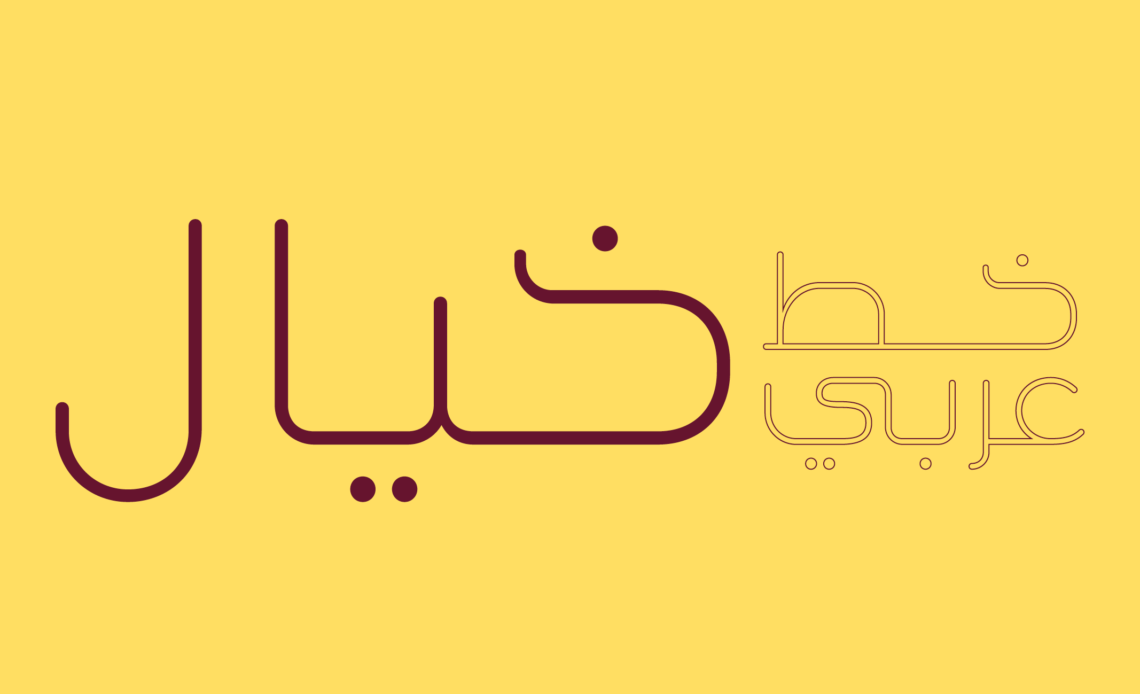
Venture into the realm of unparalleled typographic artistry with Khayal, an Arabic display font that transcends the boundaries of conventional calligraphy. Its linear-geometric structure breathes life into letterforms, shapes, and proportions, liberating them from the shackles of tradition. Khayal is not just a font; it's an expression of creativity, an invitation to embark on a journey through the depths of visual communication.
Immerse yourself in the world of Khayal, where each character carries a story, where every word becomes a masterpiece. Crafted with meticulous attention to detail, Khayal's stylistic character set adds an extra layer of depth and versatility to your designs. Whether you're crafting captivating headlines or weaving enchanting tales on the world wide web, Khayal is your trusted companion.
Let Khayal ignite your imagination and transform your creative visions into tangible realities. Its optimized design ensures seamless integration into your digital endeavors, making it the perfect choice for web design and development. Khayal is a font that speaks to the heart, a font that captivates, a font that leaves an indelible mark on the minds of your audience.
Step into the spotlight and let Khayal be the voice of your brand, the ambassador of your message. Its unique linear-geometric structure commands attention, demanding to be seen, demanding to be heard. Whether you're a seasoned designer or just starting your journey into the world of typography, Khayal is your muse, your guide, your trusted companion.
With Khayal, the ordinary becomes extraordinary, the mundane becomes magnificent. Embrace the power of innovation, embrace the power of Khayal, and watch as your creative endeavors soar to new heights. Explore the infinite possibilities, let your imagination run wild, and let Khayal be the brush that paints your dreams into reality.